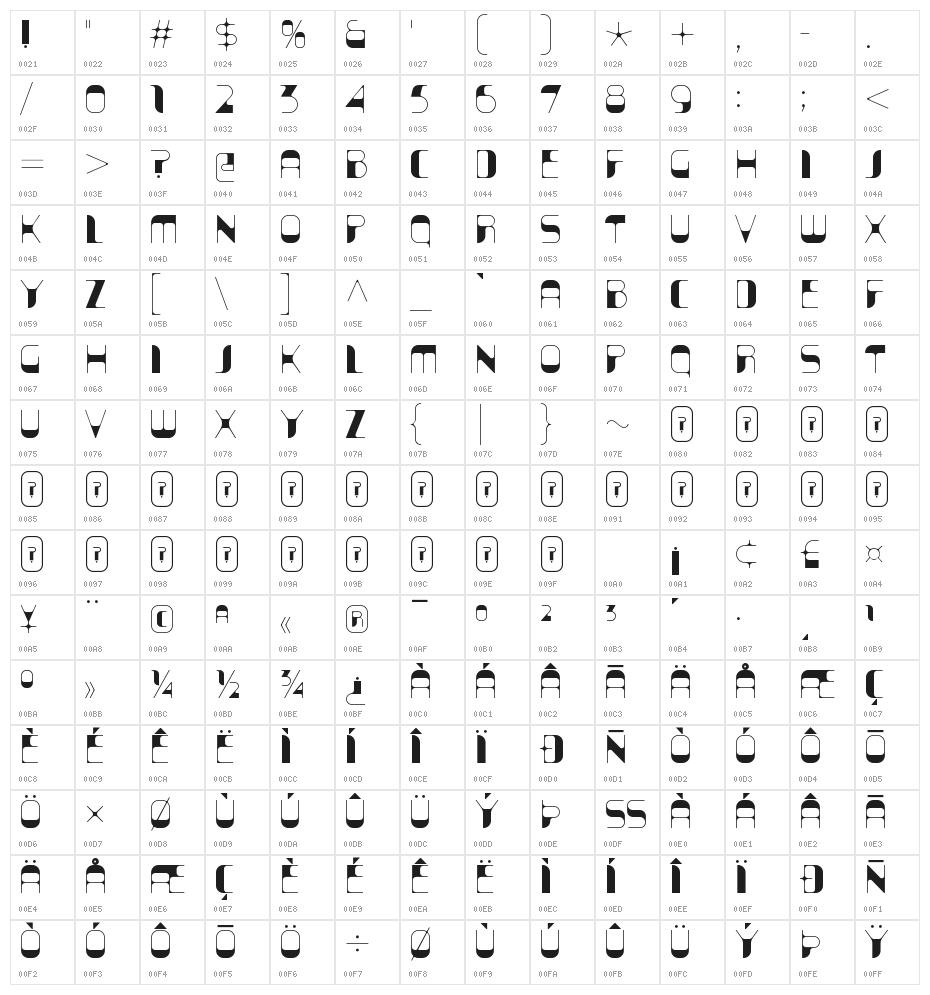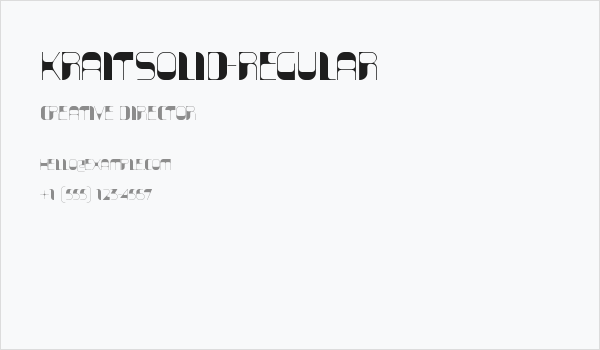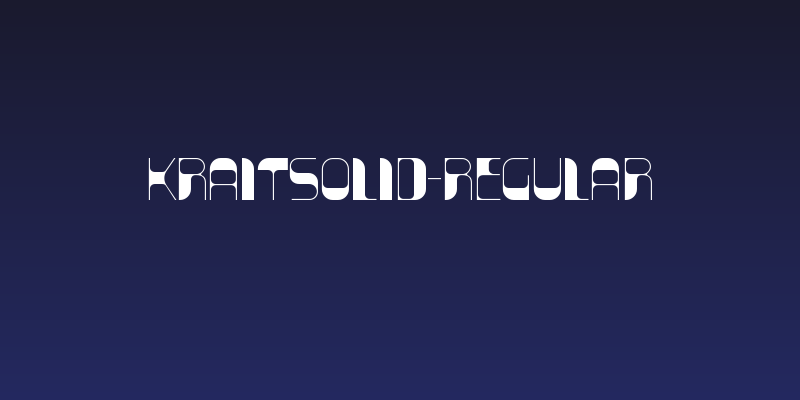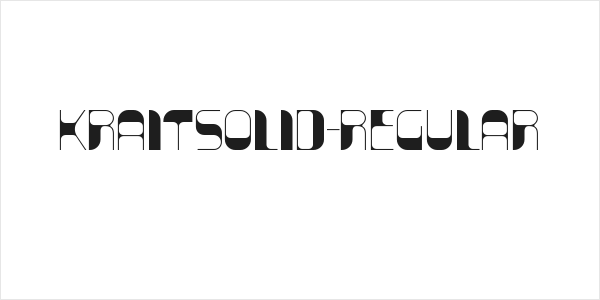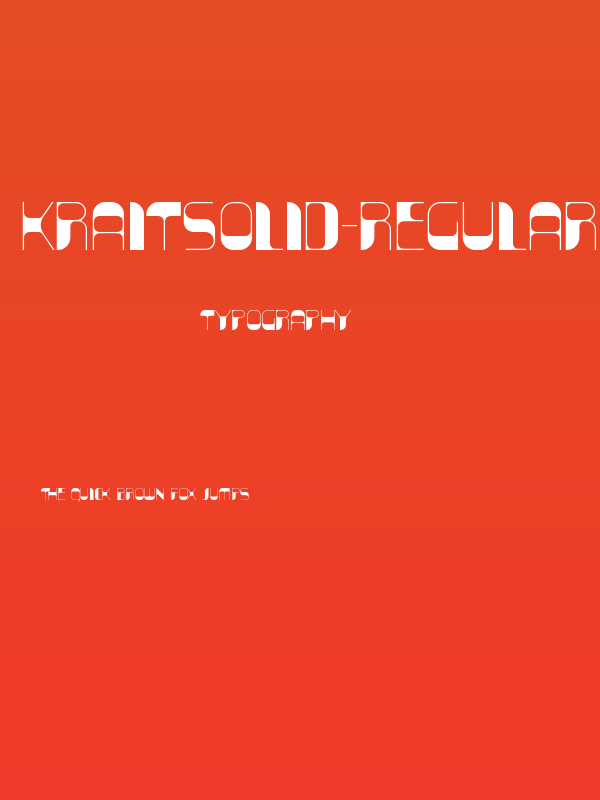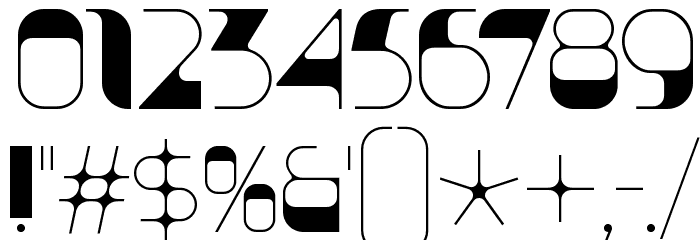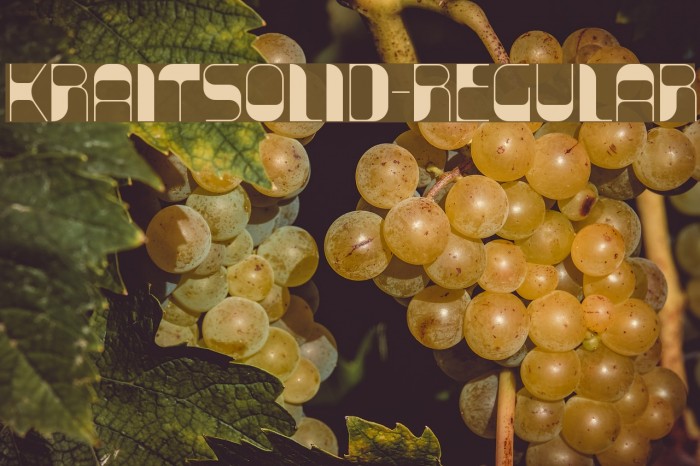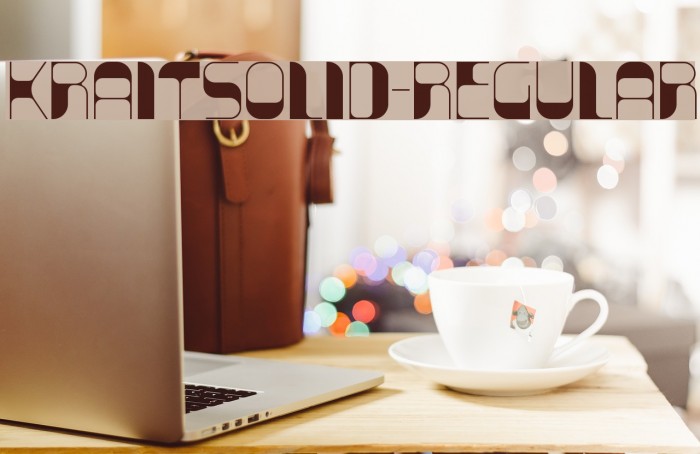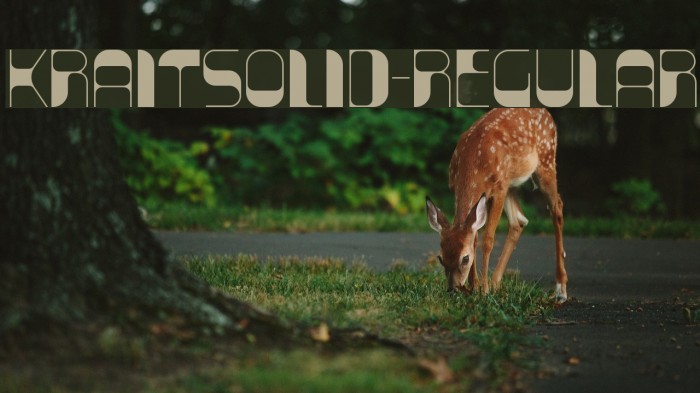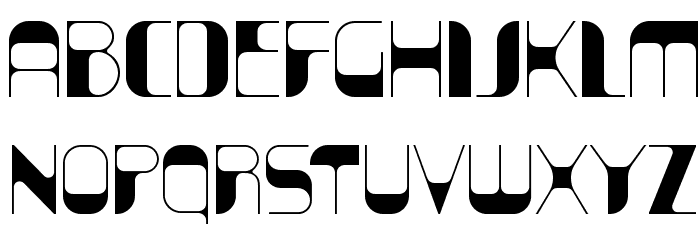
KraitSolid-Regular Font
KraitSolid-Regular Description
This font features a futuristic and geometric design with a strong emphasis on bold, angular shapes. The characters are constructed with a combination of thick and thin strokes, creating a high contrast that adds to its modern appeal. The uppercase letters are particularly striking, with unique cuts and curves that give them a distinctive look. The numbers and special characters maintain this style, ensuring consistency across all glyphs. Its design is both eye-catching and versatile, making it suitable for various creative applications.
| Proposed Projects | Ideal for sci-fi themed projects, modern branding, tech-related designs, and eye-catching headlines. |